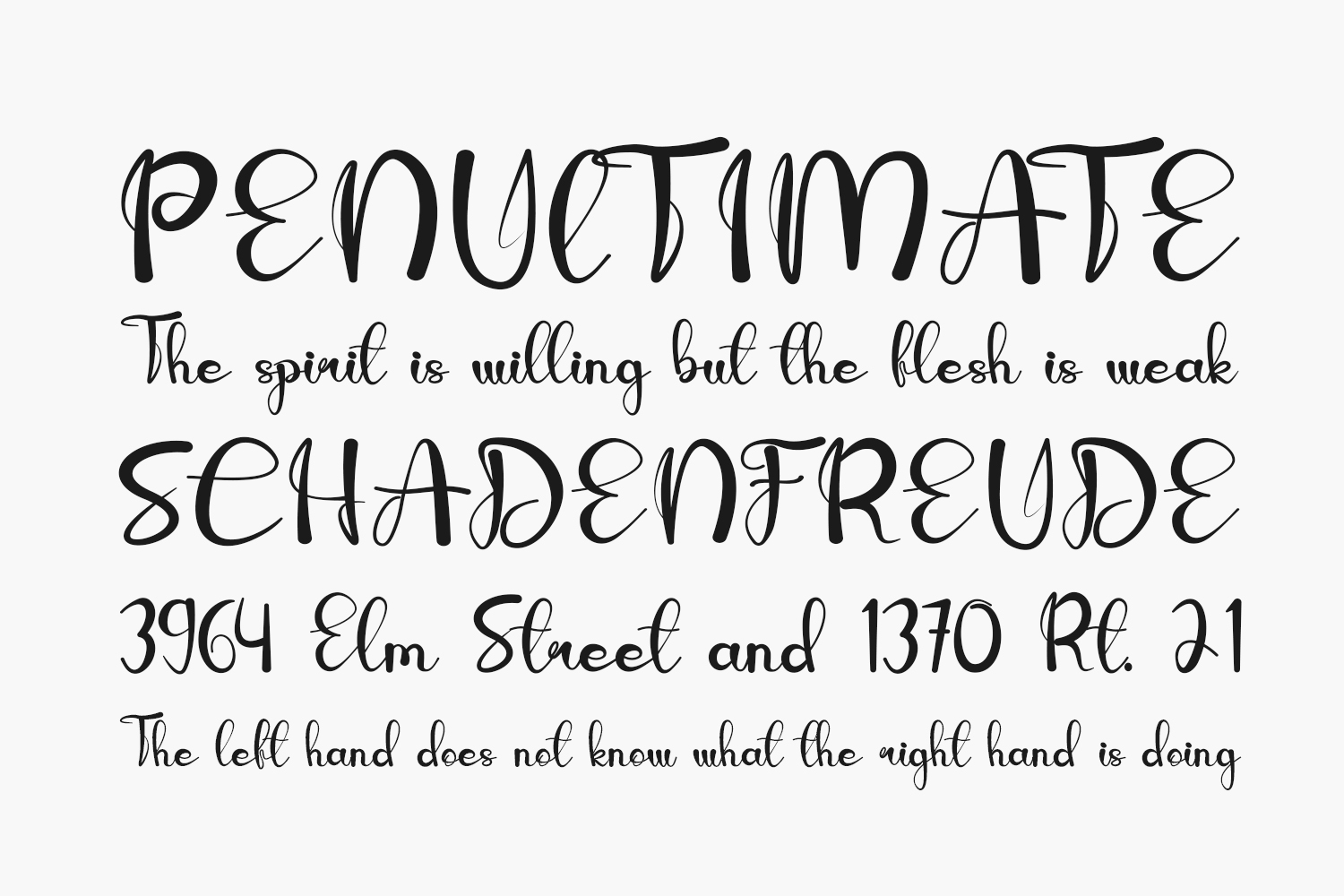
Beautiful Free Font is a graceful and exquisite handwritten font adorned with charming and intricate swashes. This unique aesthetic is sure to captivate diverse creative endeavors, including letterheads, headings, and stationery. Beautiful Free Font is free for personal use only. Please purchase the full version for commercial use.
Designed by Design Vector10